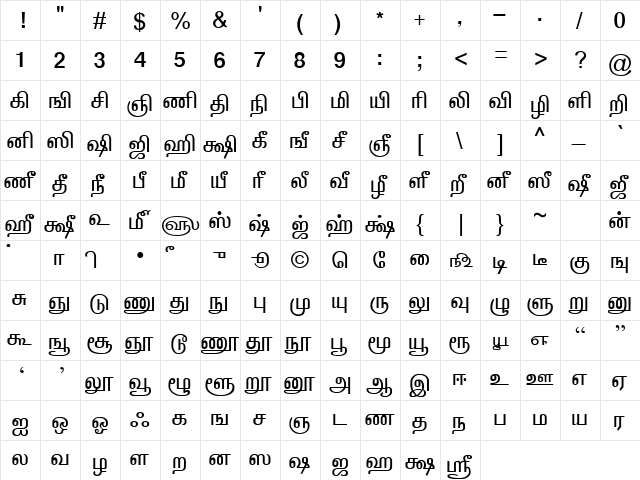
TAM-Kalaignar Normal
Design Context for TAM-Kalaignar Typeface
TAM-Kalaignar takes a measured approach to typography — its balanced proportions and neutral character make it a reliable workhorse for both digital and print work.